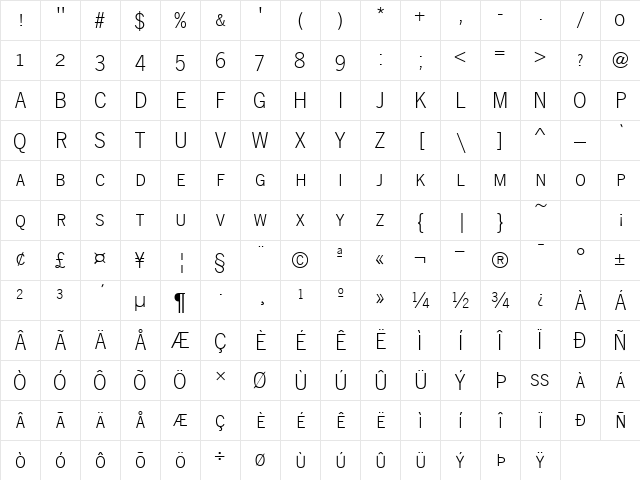
NewsGothicSmcL Regular
Design Context for NewsGothicSmcL
NewsGothicSmcL takes a clean, functional approach - its unadorned letterforms prioritise legibility and work reliably across screen and print environments.
Font Pairing: Works well alongside a characterful serif or display font that can carry the expressive load while NewsGothicSmcL handles the functional copy.
Pro Tip: Use NewsGothicSmcL for UI labels, navigation, and short-form body copy where clean legibility is the priority.